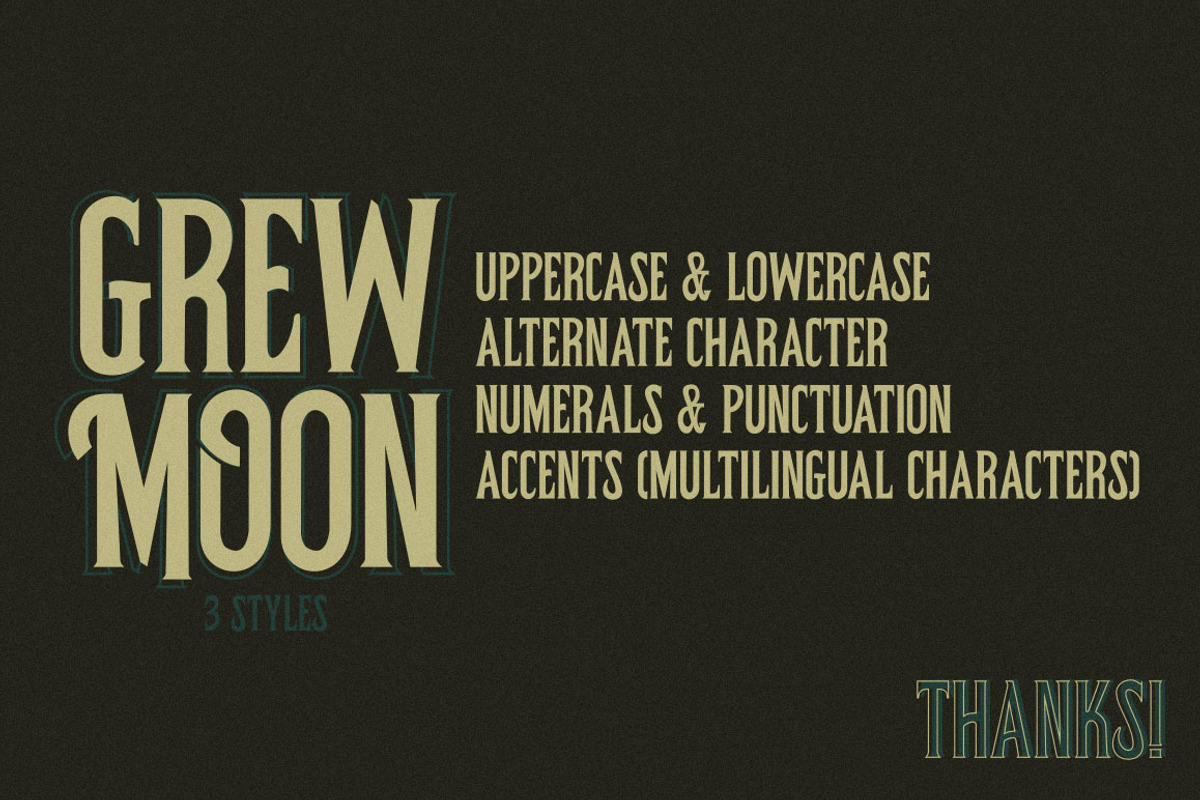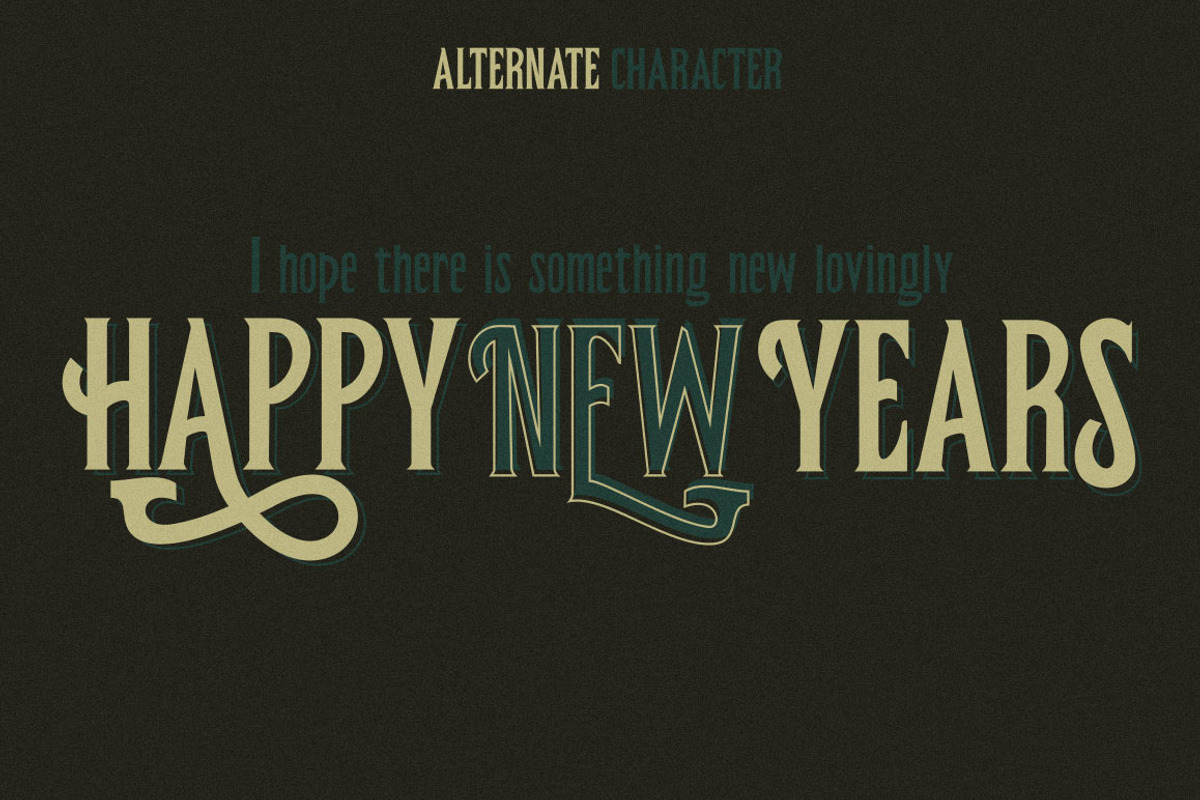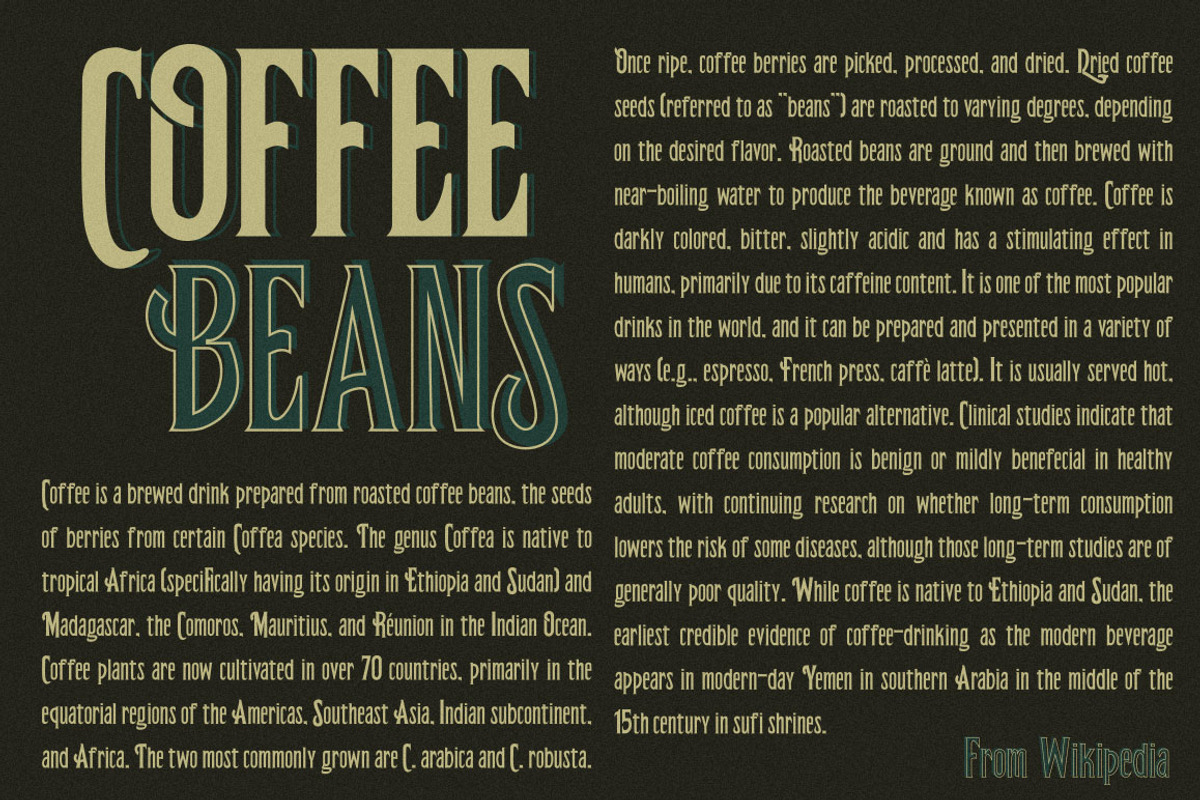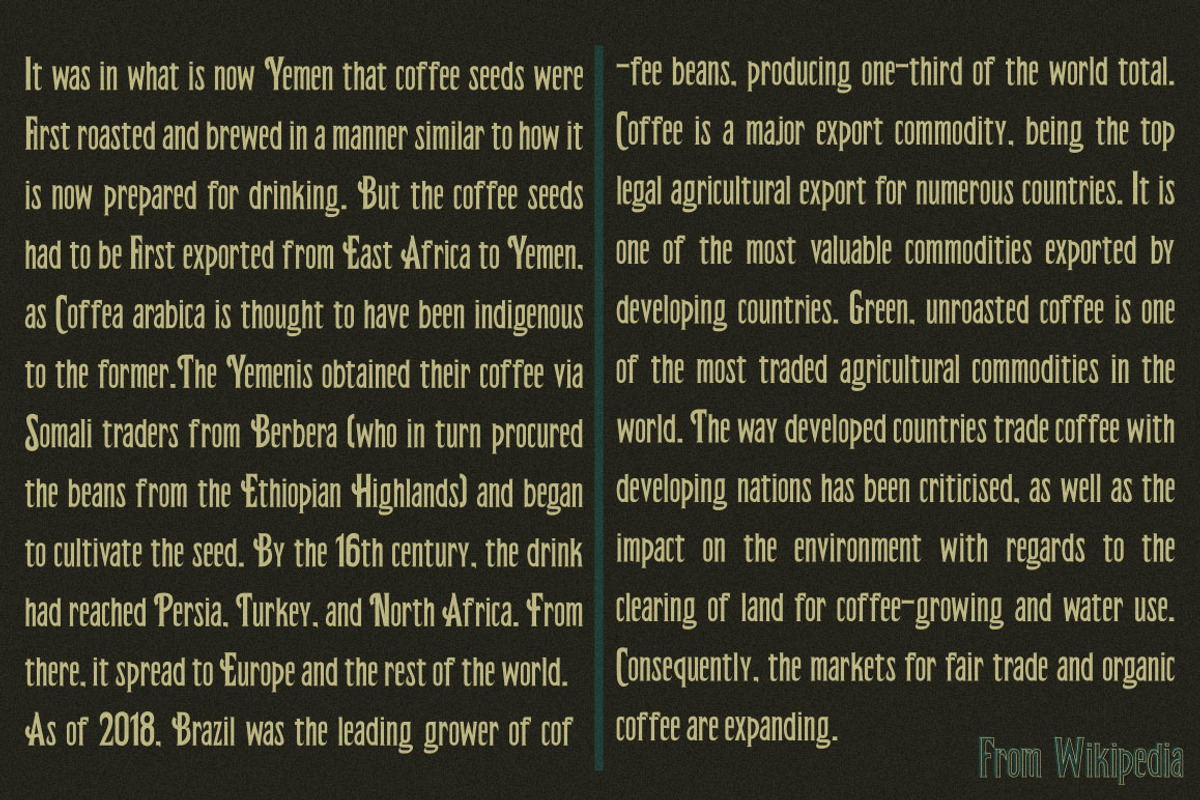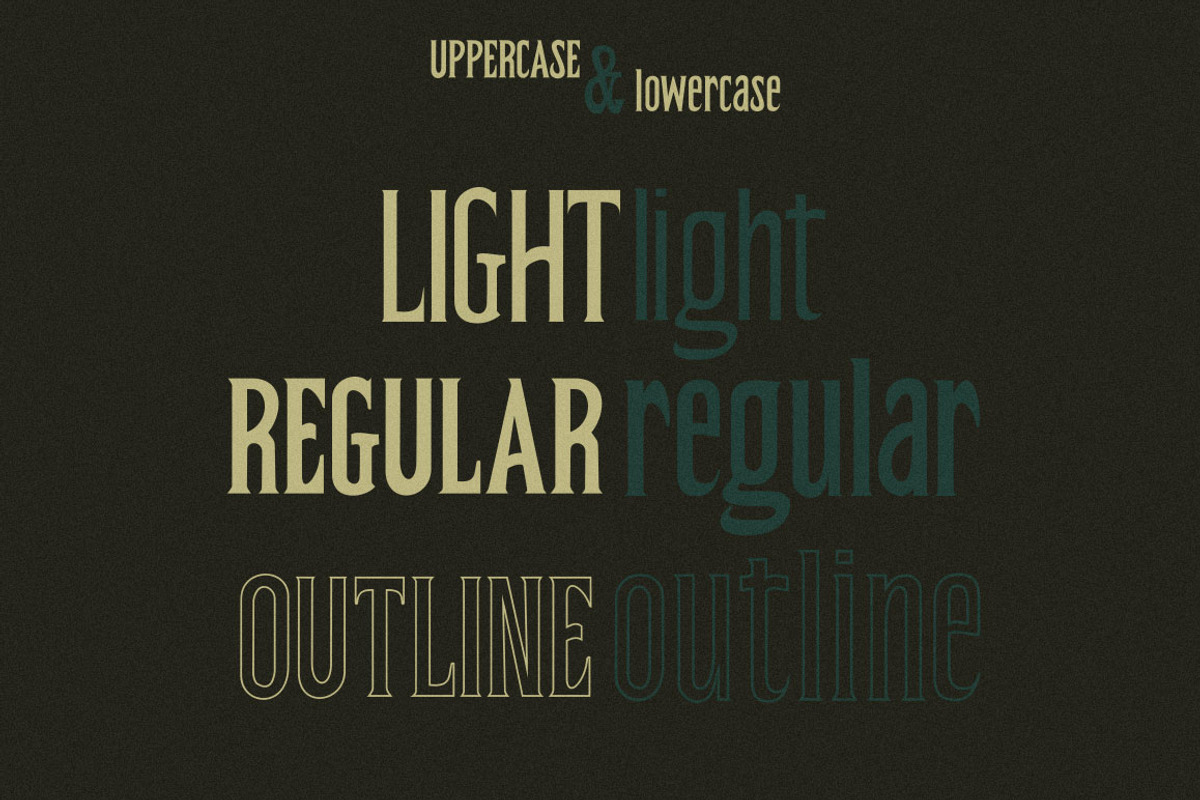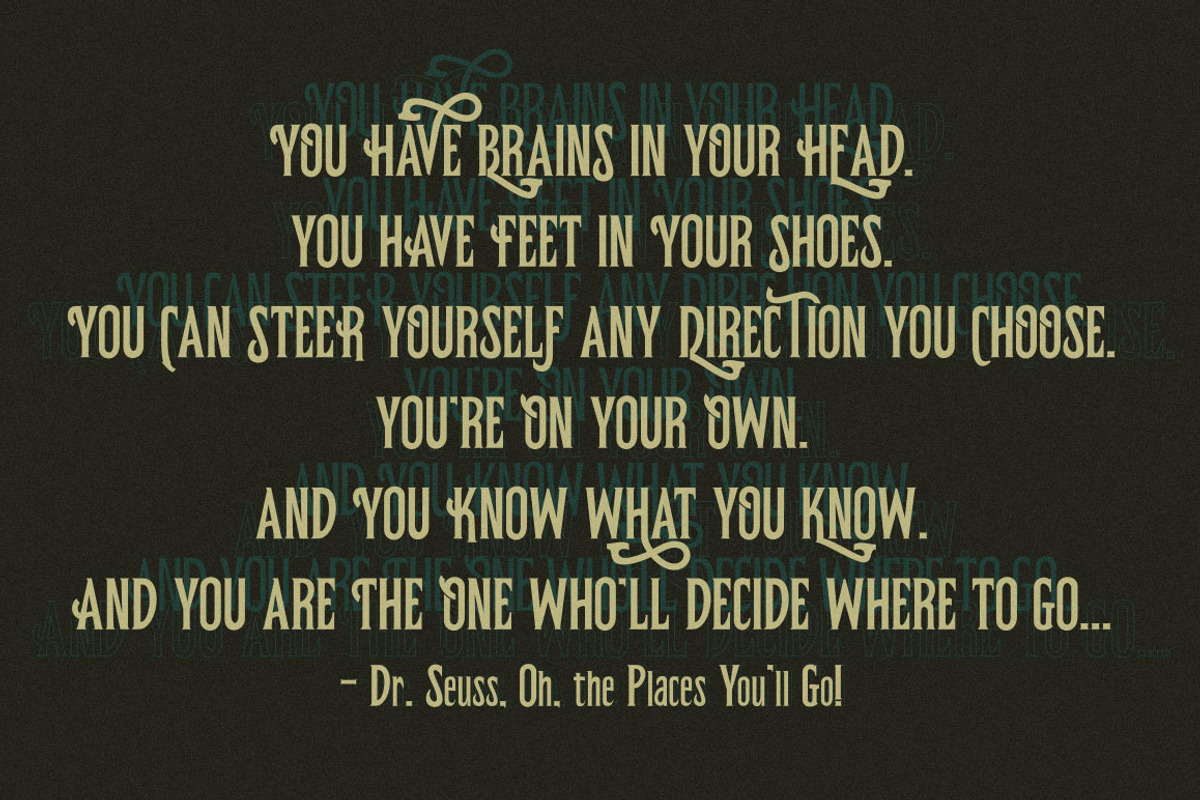
Grewmoon Fonts
Grewmoon was inspired by vintage art. A beautiful display font with alternate character. Very suitable to create a design for magazines, packaging, branding , website header, posters, greeting cards, letterhead, and many other creative projects. What's include :
- A beautiful display font with alternate character.
- Grewmoon Regular
- GrewmoonLight Regular
- Grewmoon Outline Regular